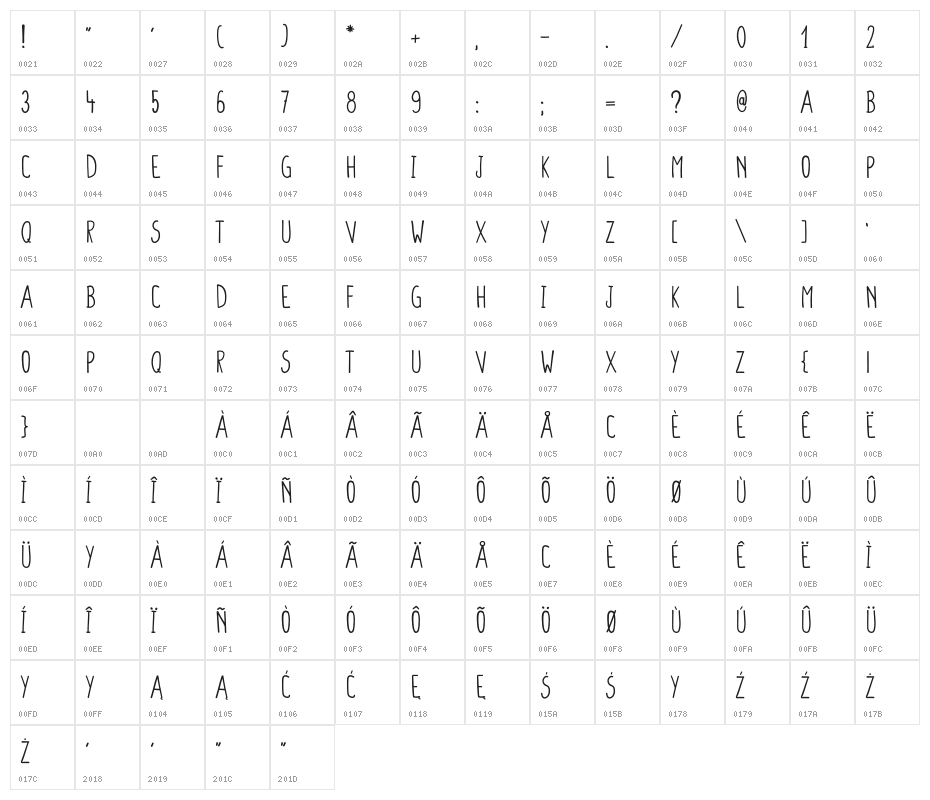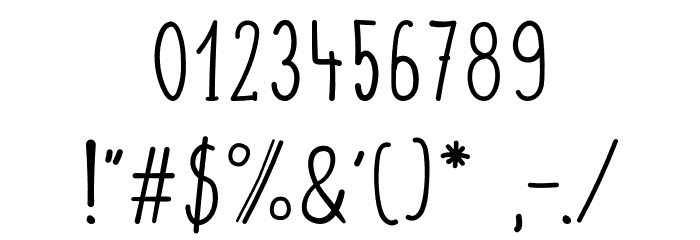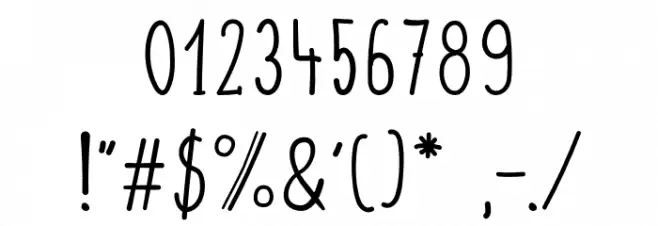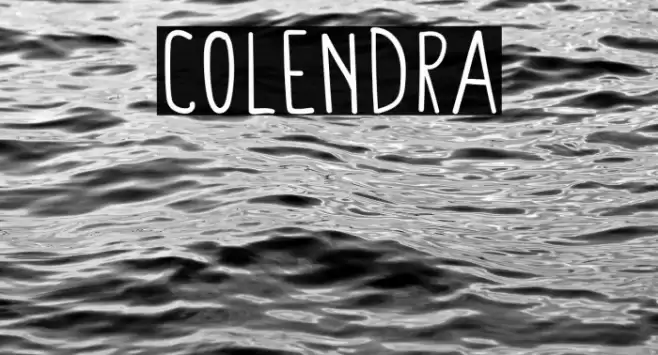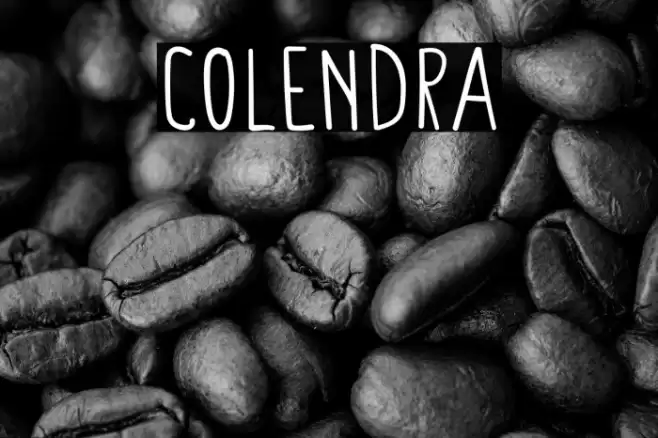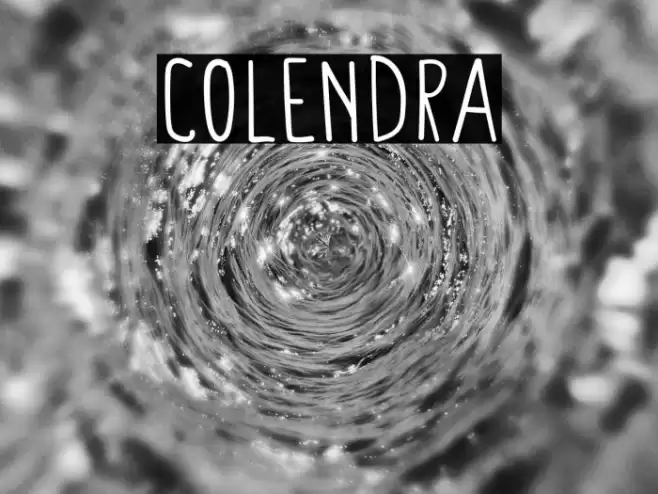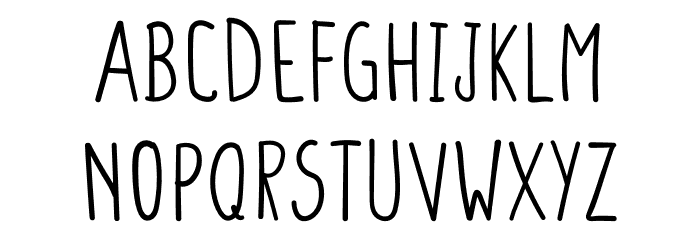
Colendra Font
Colendra Description
This font features a playful and casual handwritten style, characterized by its slightly irregular and organic letterforms. The strokes are consistent in width, giving it a uniform appearance while maintaining a friendly and approachable vibe. The characters are tall and narrow, with a slight slant that adds to the informal feel. The font includes both uppercase and lowercase letters, numbers, and a variety of special characters, making it versatile for different uses. Its simplicity and charm make it suitable for projects that require a personal touch.
| Width | Condensed |
| Overall Style | Casual |
| Use Case | Headlines, Informal text, Branding |
| Proposed Projects | Ideal for greeting cards, children's books, casual branding, and social media graphics. |